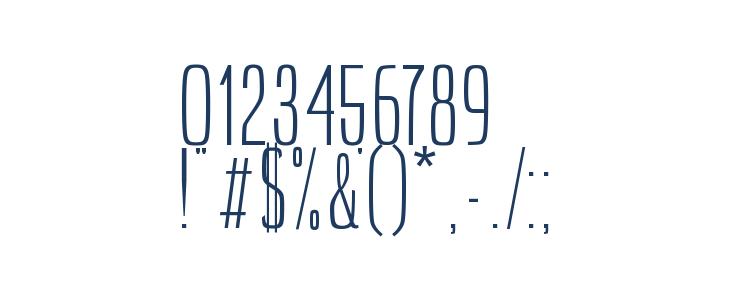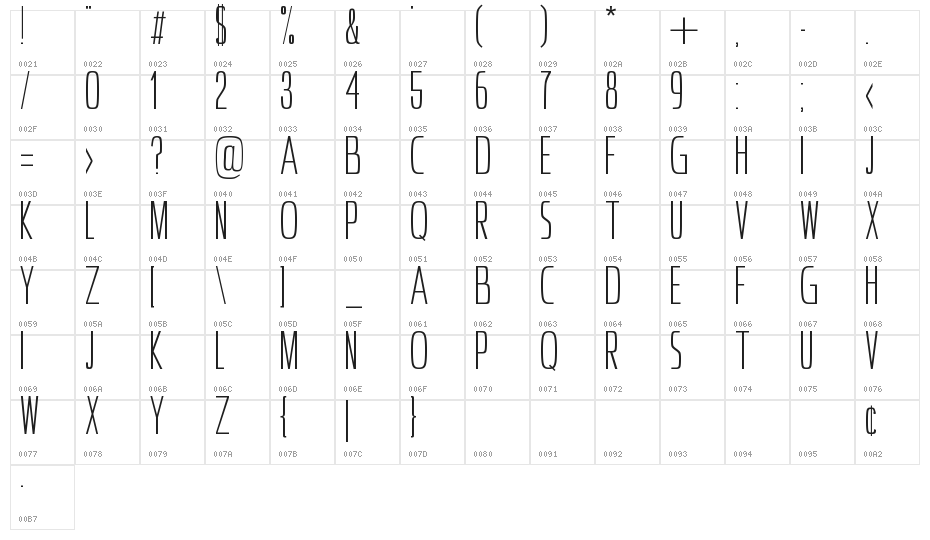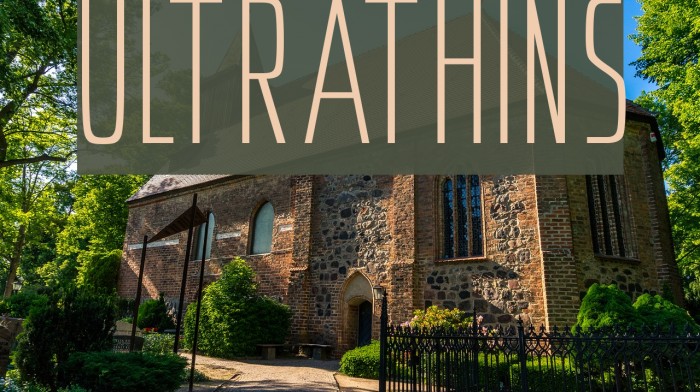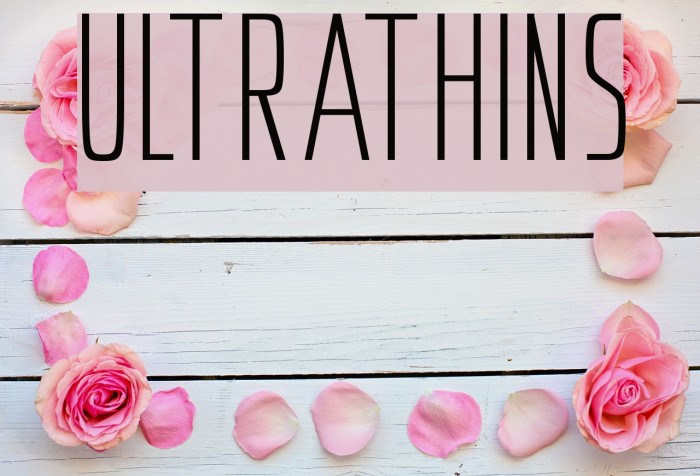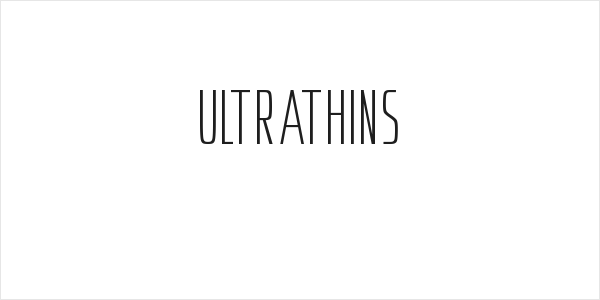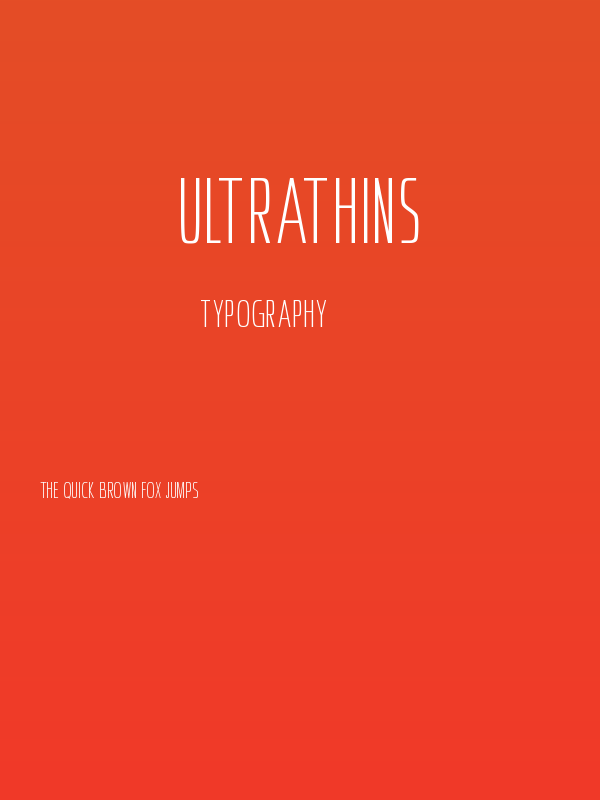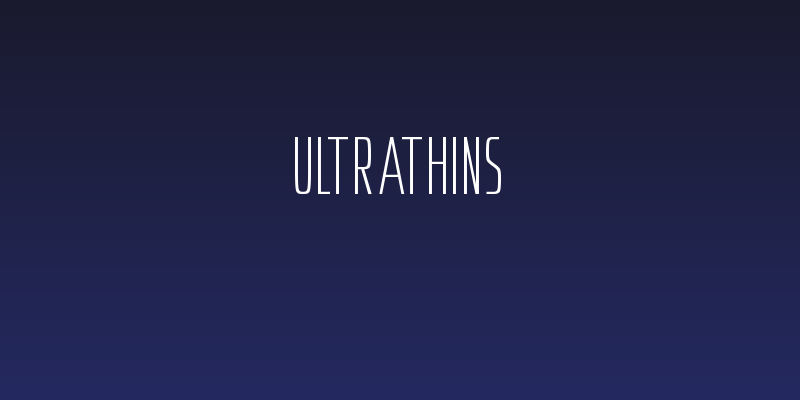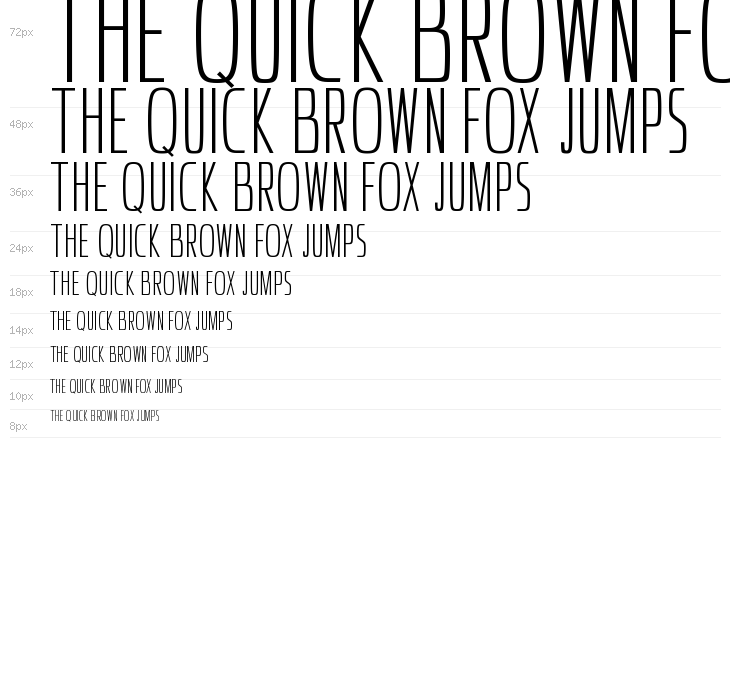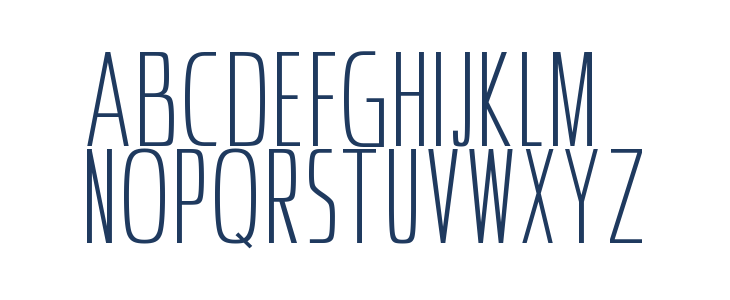
Ultrathins Font
Ultrathins Description
This font features an ultra-thin, elongated design with a modern and minimalist aesthetic. The characters are tall and narrow, giving a sleek and sophisticated look. The uppercase and lowercase letters maintain a consistent height, contributing to a uniform appearance. The numerals and special characters are designed to match the overall thin and elongated style, ensuring a cohesive visual presentation. The font's clean lines and minimal stroke contrast make it ideal for contemporary design projects where a refined and elegant touch is desired.
| Proposed Projects | Ideal for fashion magazines, luxury branding, minimalist posters, and modern web design. |